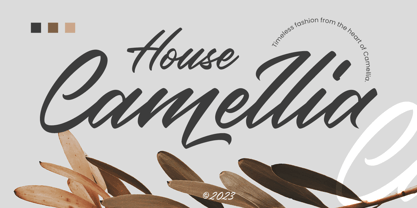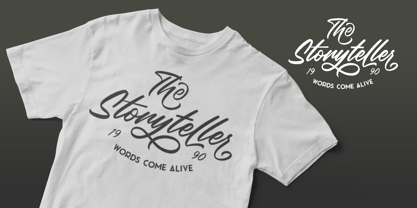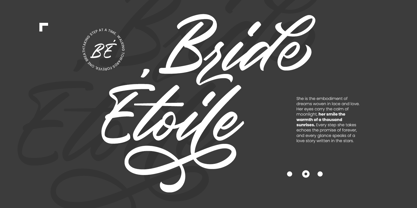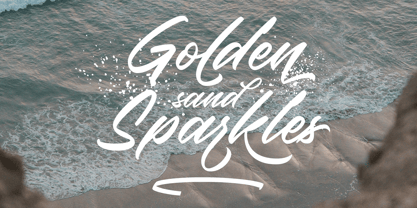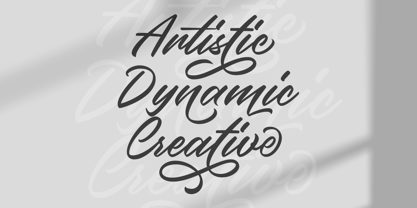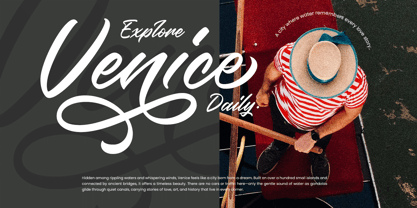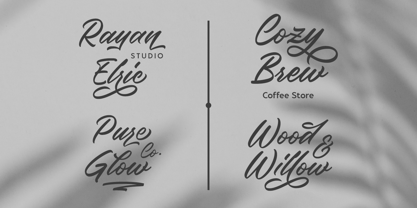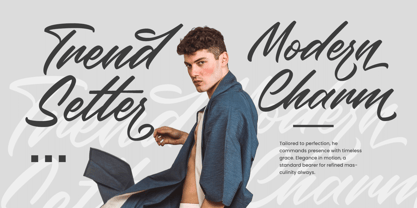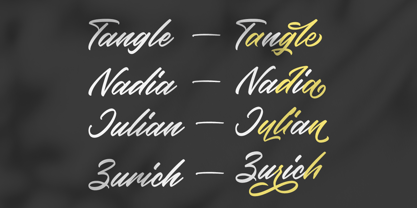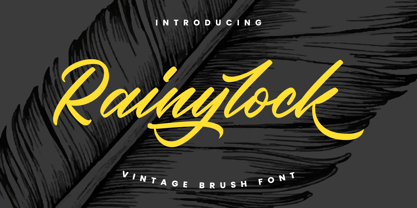
Rainylock
by Arterfak Project
The Rainylock Font Family was designed by Ahmad Ramzi Fahruddin and published by Arterfak Project. Rainylock contains 1 styles. More about this family
Rainylock is a handwritten Script brush font, crafted in a quick, handwritten style and enhanced with a variety of swashes to add more typographic flair. It includes 14 sets of swashes that you can play with!
This font is simple, clean, bold, and playful—perfect for a wide range of uses such as logos, logotypes, cards, weddings, posters, motion graphics, headlines, and more.
• Uppercase
• Lowercase
• Numbers & punctuation
• Stylistic alternates
• Stylistic Set 01-14